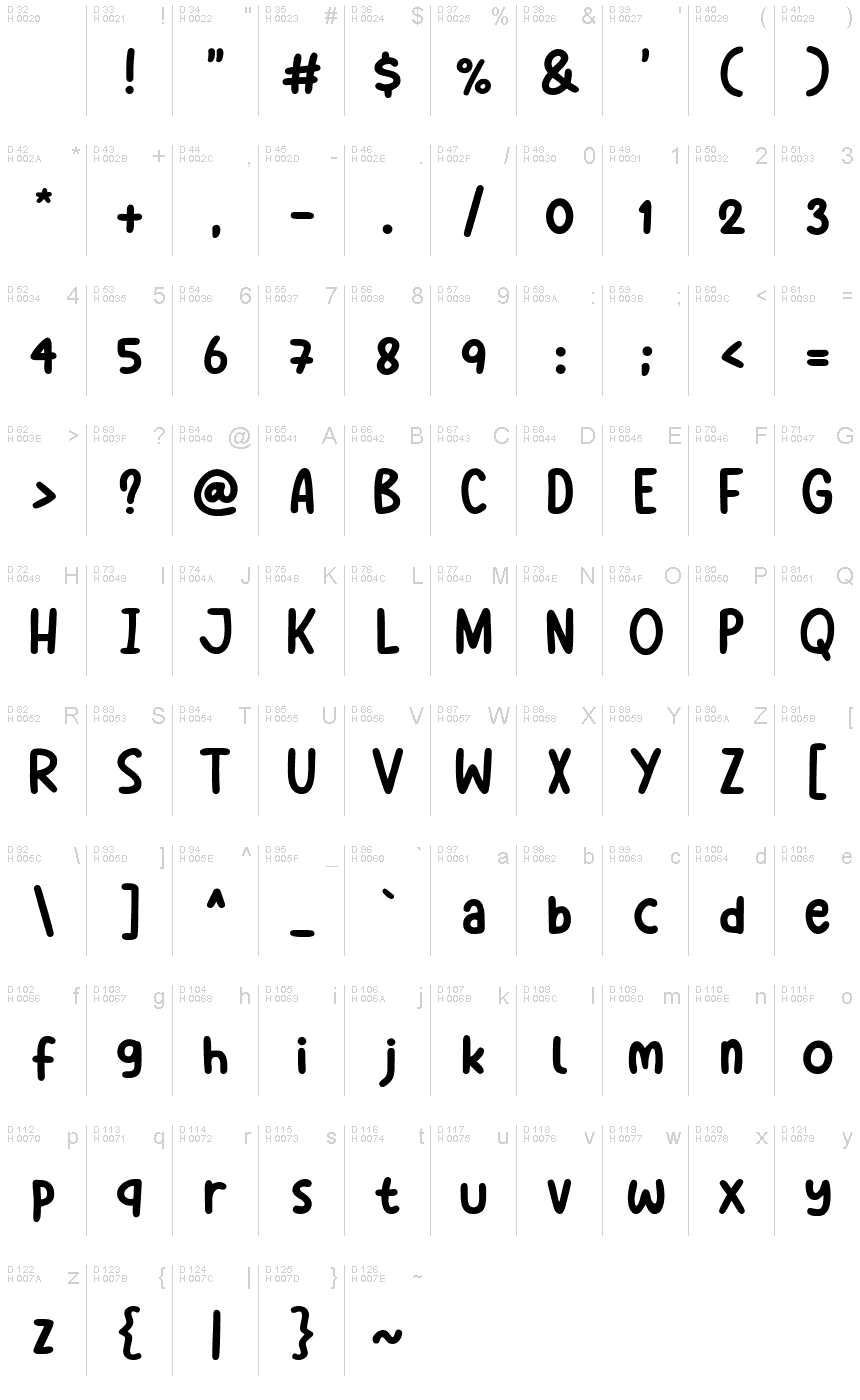
Milky Mania
Milky Mania, the brainchild of renowned font designer Khurasan, is a captivating display font that brings a playful touch to any project. With its whimsical and vibrant cartoon style, this typeface is perfect for children's books, animated movies, party invitations, and even logo designs for ice cream parlors or candy stores. Milky Mania's bold and lively characters add an element of fun to posters, packaging, and websites targeting a youthful audience. Let your creativity soar with this semi-bold font that will surely leave a lasting impression on your audience.